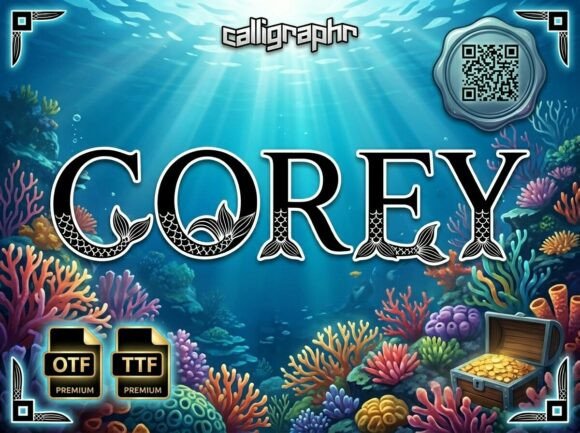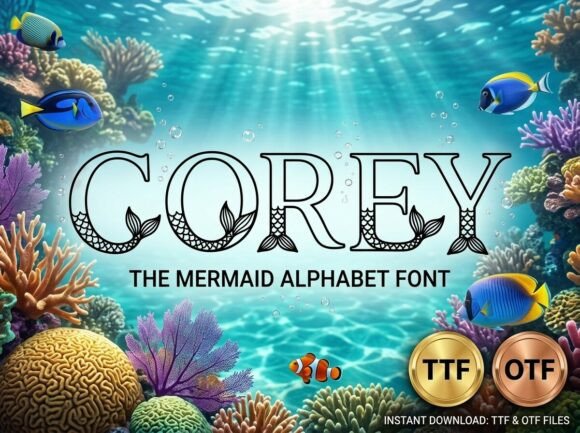
Introducing Corey Font: A Stunning Decorative Display Font
Are you tired of using the same old fonts for your designs? Do you want to make a statement and stand out from the crowd? Look no further than Corey Font, a unique and artistic display font that’s perfect for creators who want to add a touch of elegance and sophistication to their work.
Corey Font is a stunning decorative display font designed to be the center of attention. With its unique artistic elements and strong visual personality, this font is sure to make your designs pop. Whether you’re looking to create bold headlines, artistic logos, or creative packaging, Corey Font is the perfect choice.
One of the best things about Corey Font is its versatility. This font is perfect for a wide range of design projects, from high-end branding and advertising to packaging and editorial design. The font’s professional and polished finish ensures that it will look great in any context, from digital to print.
Before you purchase Corey Font, it’s essential to note that this font is an ALL-CAPS (Uppercase Only) display typeface. This means it does not include lowercase letters. It’s specifically designed for high-impact headlines, logos, and decorative initials where every letter is a work of art.
Why Choose Corey Font?
So why choose Corey Font over other display fonts on the market? Here are just a few reasons:
- Unique and Artistic: Corey Font features unique artistic elements that will make your designs stand out from the crowd.
- Professional and Polished: Despite its bold and decorative nature, Corey Font has a professional and polished finish that’s perfect for high-end designs.
- Versatile: Corey Font can be used for a wide range of design projects, from branding and advertising to packaging and editorial design.
- Use it for Headlines: Corey Font is perfect for bold headlines and titles. Use it to make a statement and draw attention to your designs.
- Experiment with Colors: Corey Font looks great in a wide range of colors. Experiment with different colors and gradients to add depth and interest to your designs.
- Pair it with Other Fonts: Corey Font can be paired with a wide range of other fonts to create a unique and visually appealing design.
Corey Font is a stunning decorative display font that’s perfect for creators who want to add a touch of elegance and sophistication to their designs. With its unique artistic elements, strong visual personality, and professional and polished finish, this font is sure to make your designs stand out from the crowd. So why wait? Purchase Corey Font today and start creating stunning designs that demand attention.